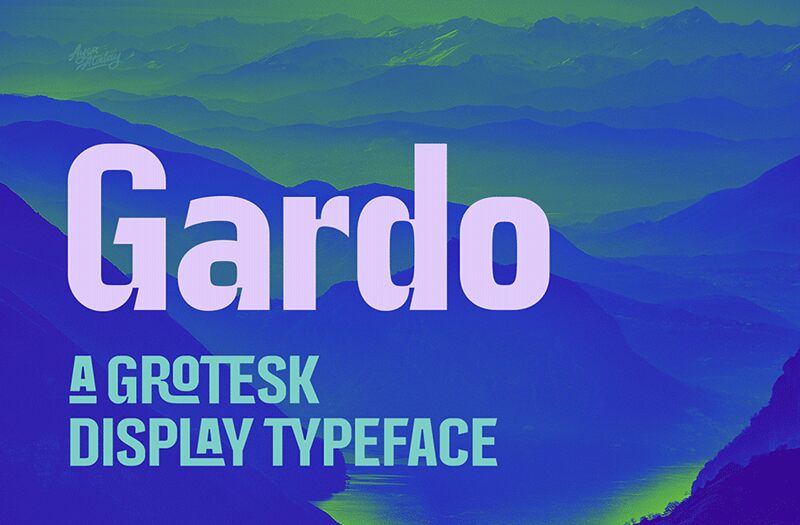
Gardo Grotesk, a striking creation by font designer Ayca Atalay, is a dynamic sans serif font that demands attention. With its semi-bold weight and semi-condensed width, this font exudes confidence and power. Its sleek contours and clean lines make it perfect for modern branding projects seeking a bold statement. From fashion labels to tech startups, Gardo Grotesk adds an air of sophistication and strength to any design. Whether it's for eye-catching headlines or impactful logos, this versatile font is the go-to choice for those wanting to make a lasting impression.
Gardo Grotesk Demo
Gardo Grotesk | Ayca Atalay | 2021
Gardo Grotesk Demo Regular